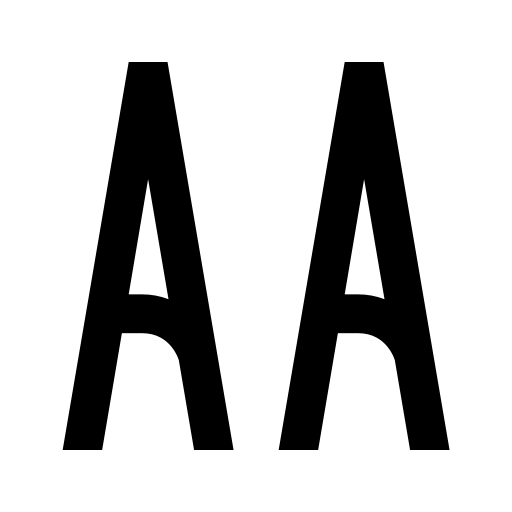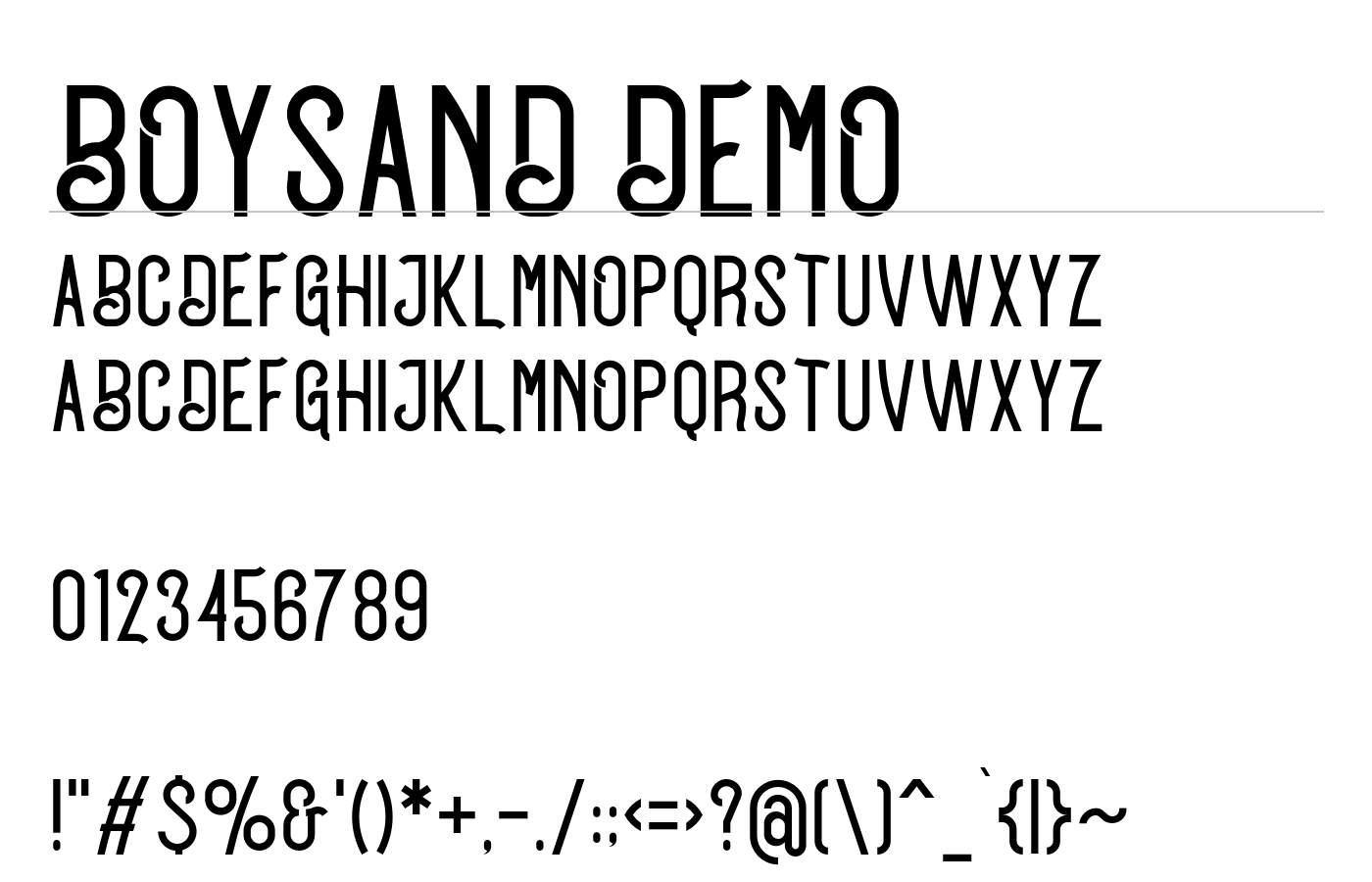
BOYSAND DEMO is a tall, condensed sans serif font with a quirky, decorative twist seen in its unique curly terminals and sharp angular cuts. Its high contrast between thick and thin strokes, combined with stylized letterforms, gives it a playful yet modern vibe, perfect for eye-catching headlines, posters, and branding that wants to blend sophistication with a touch of creativity. This font works best in display settings where its distinctive character can stand out and create memorable visual impact.
BOYSAND DEMO Font
About BOYSAND DEMO Font